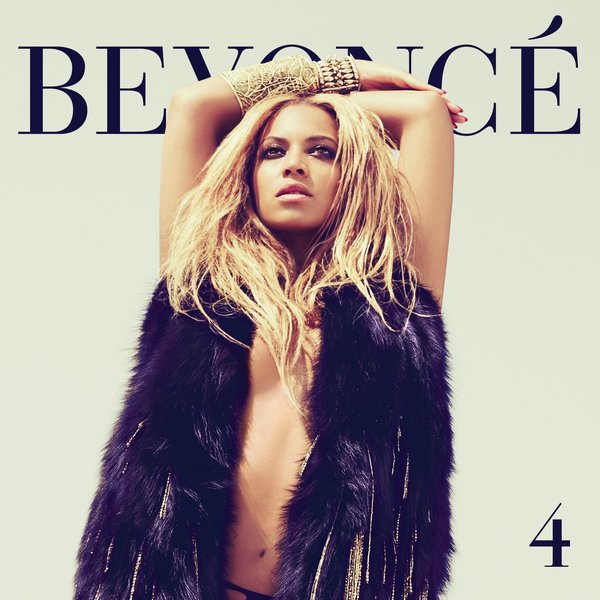
Beyoncé 4 Font
Fonts in Use4 is the fourth studio album by Beyonce, released in 2011. The album features a blend of R&B, soul, and pop music, and includes hit singles such as "Run the World (Girls)" and "Love on Top."